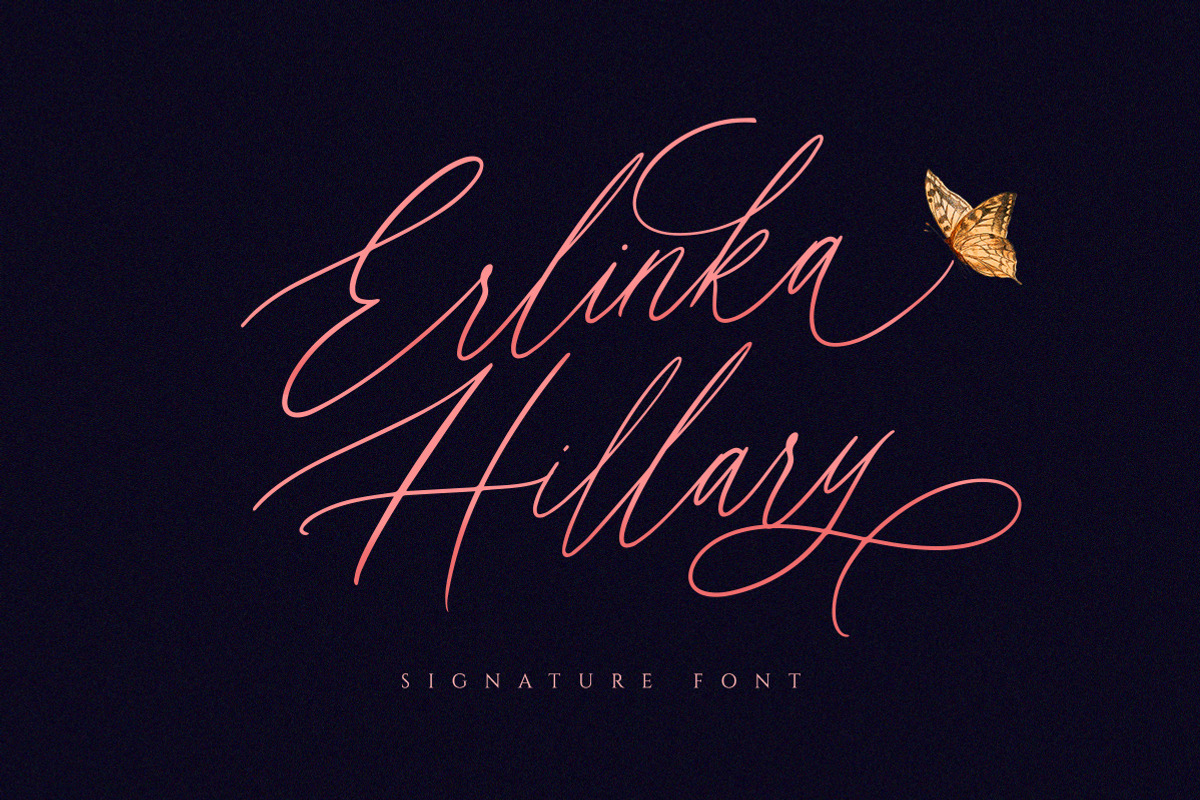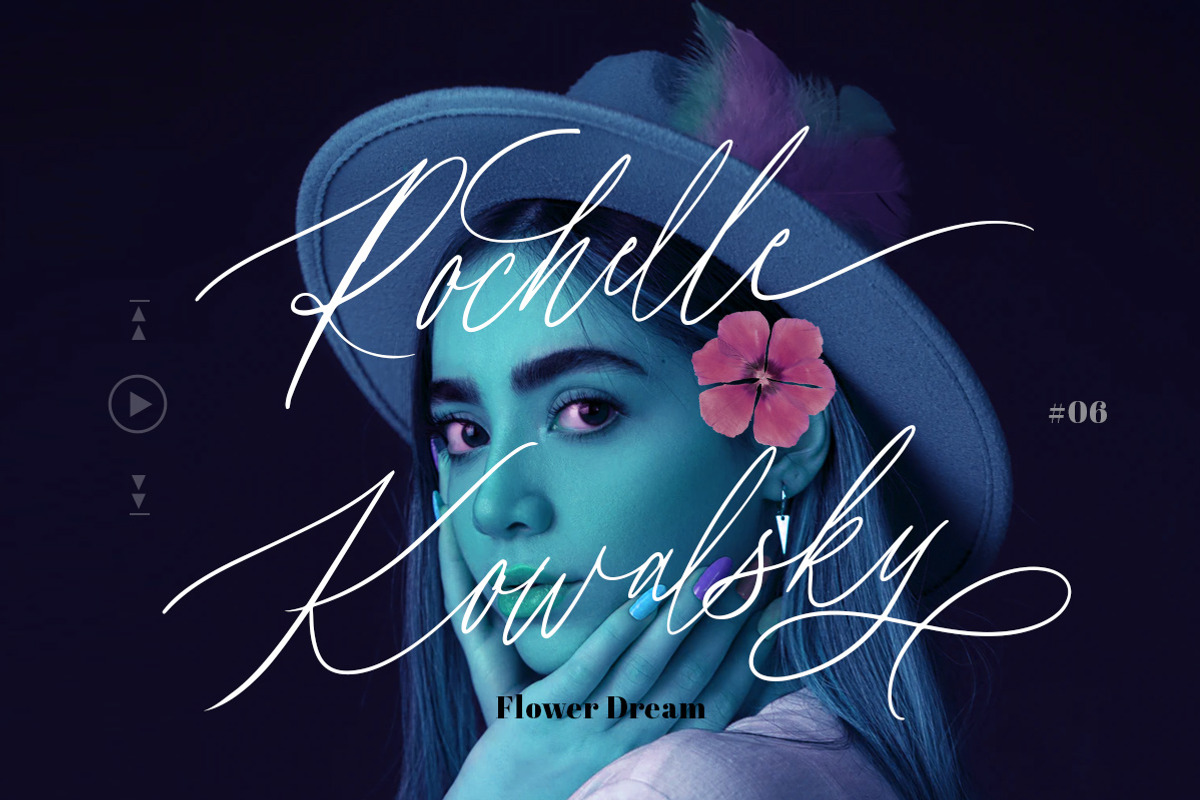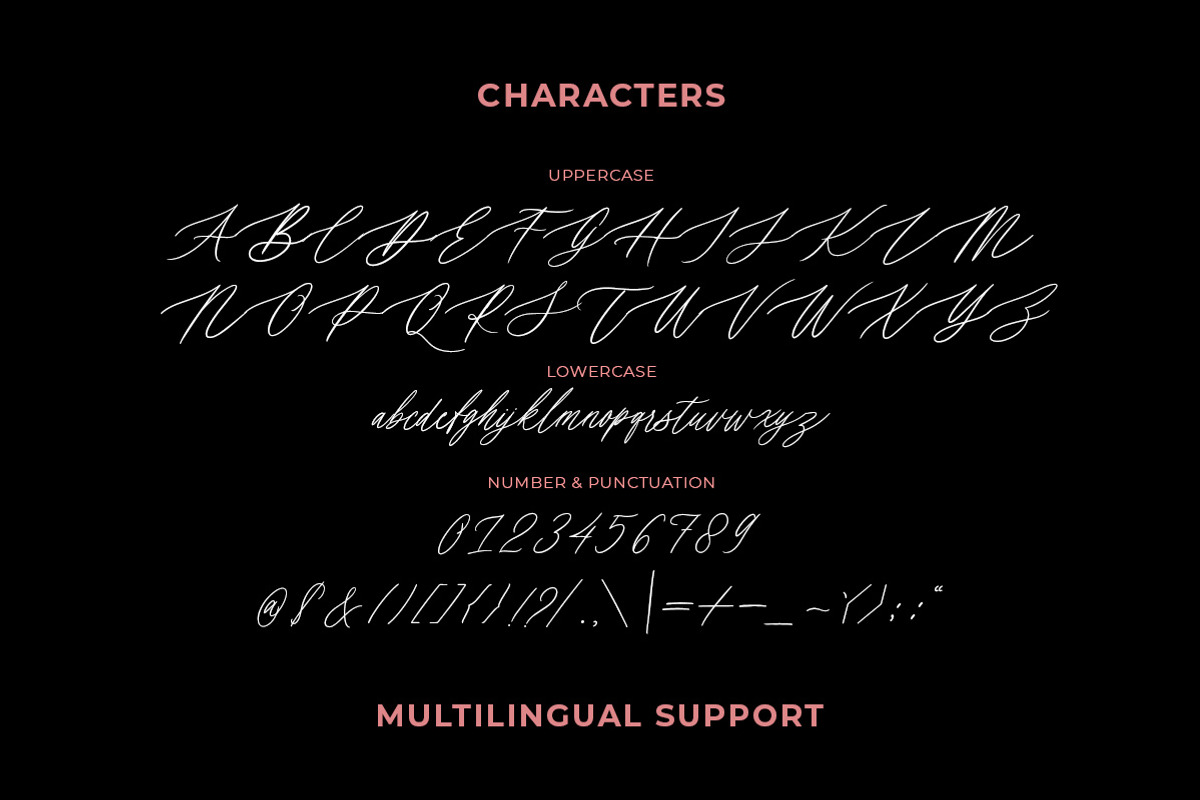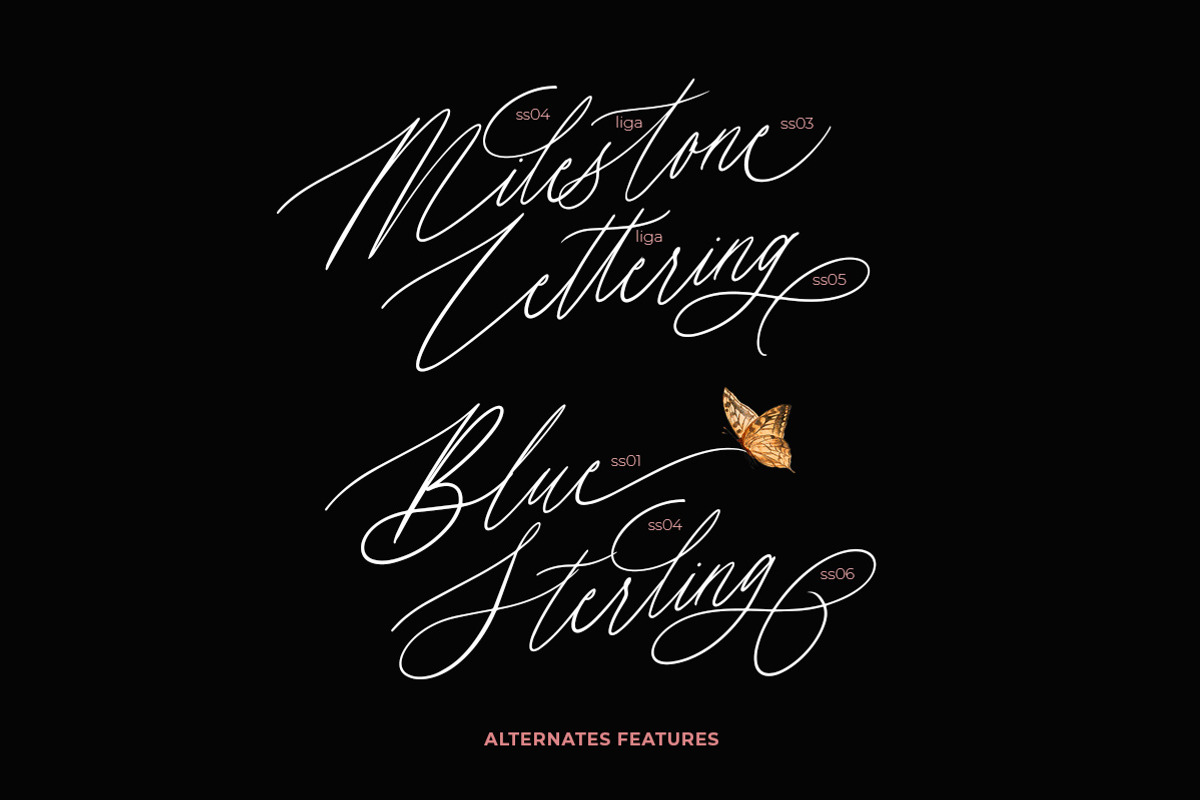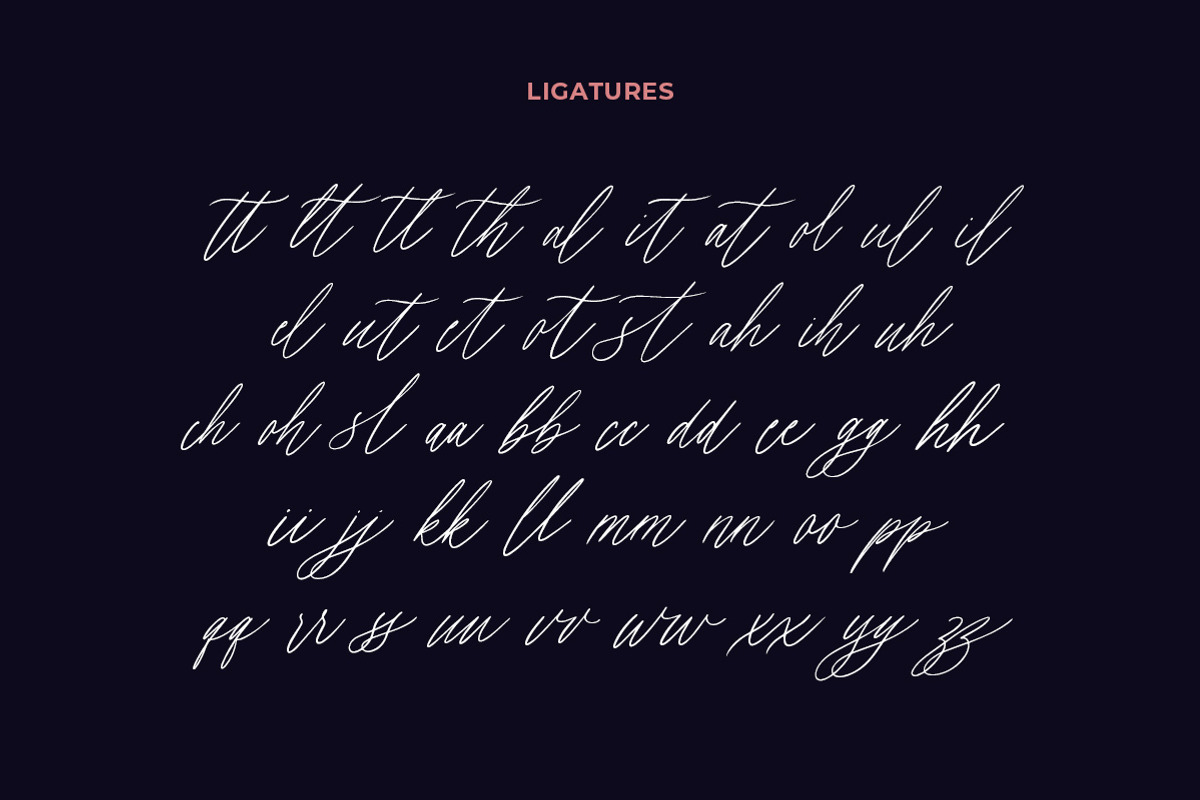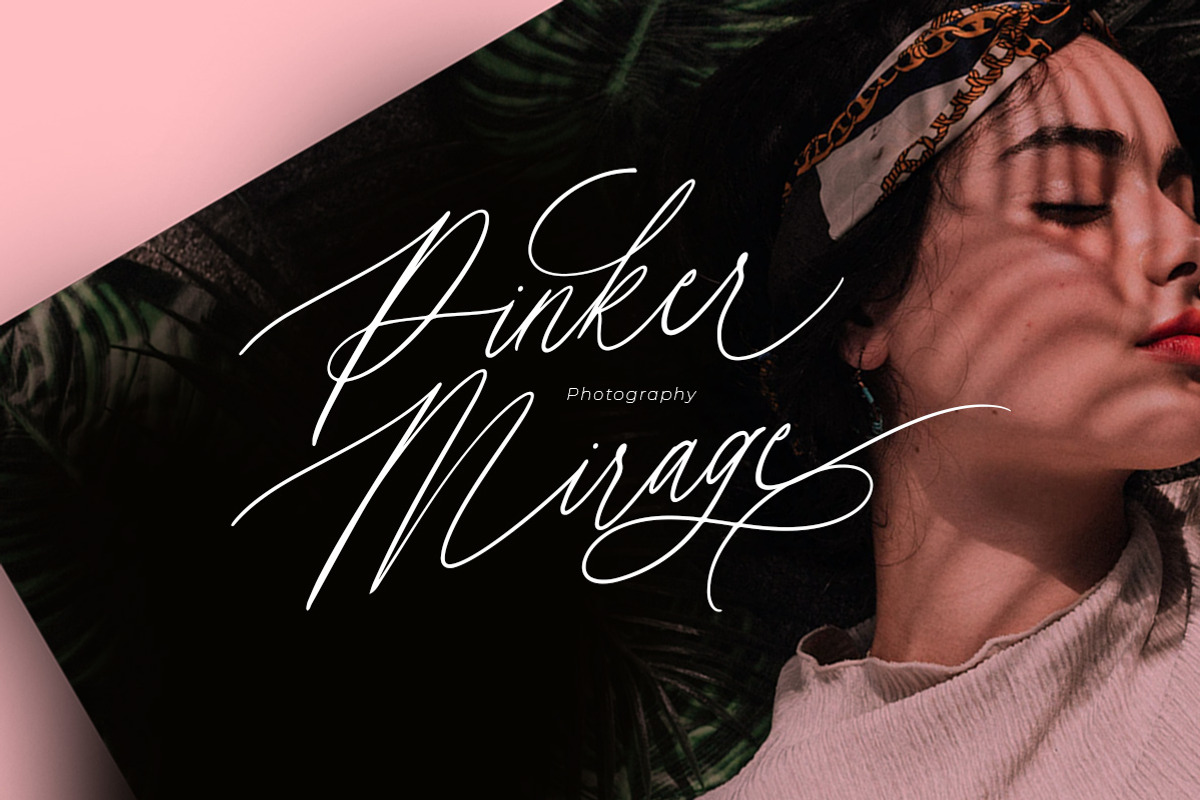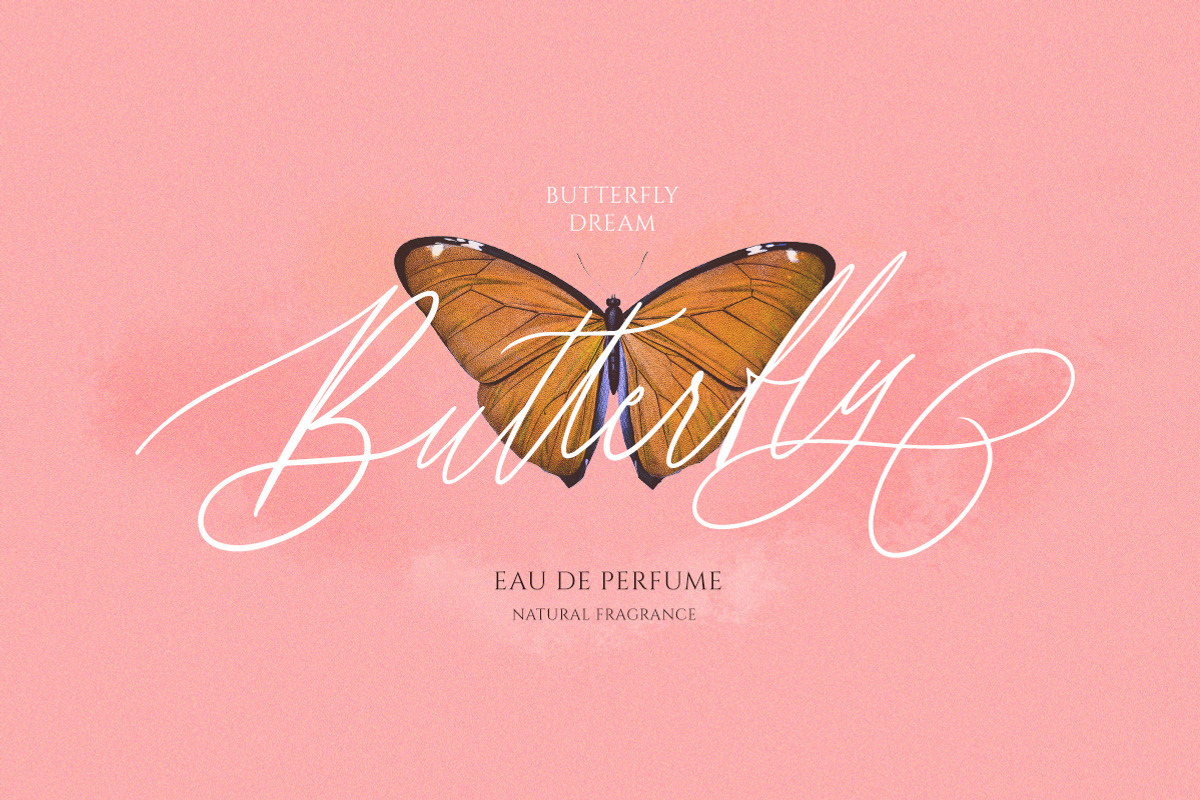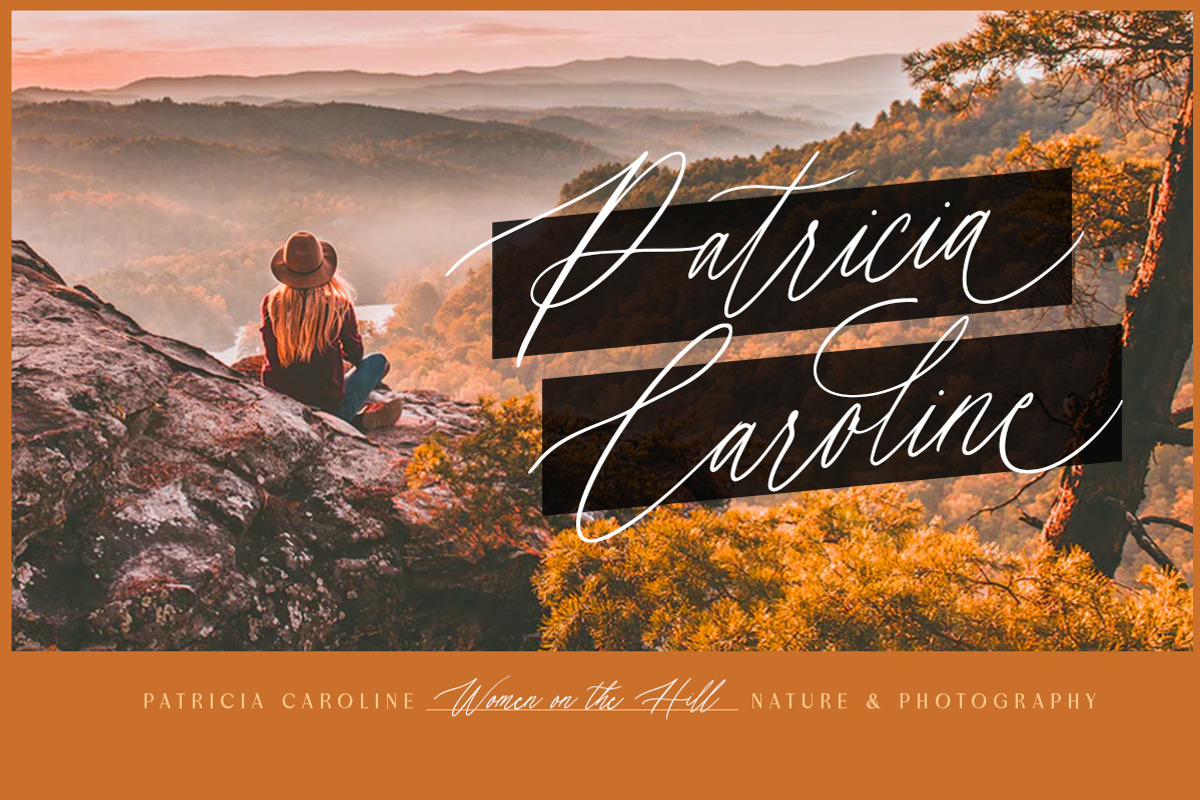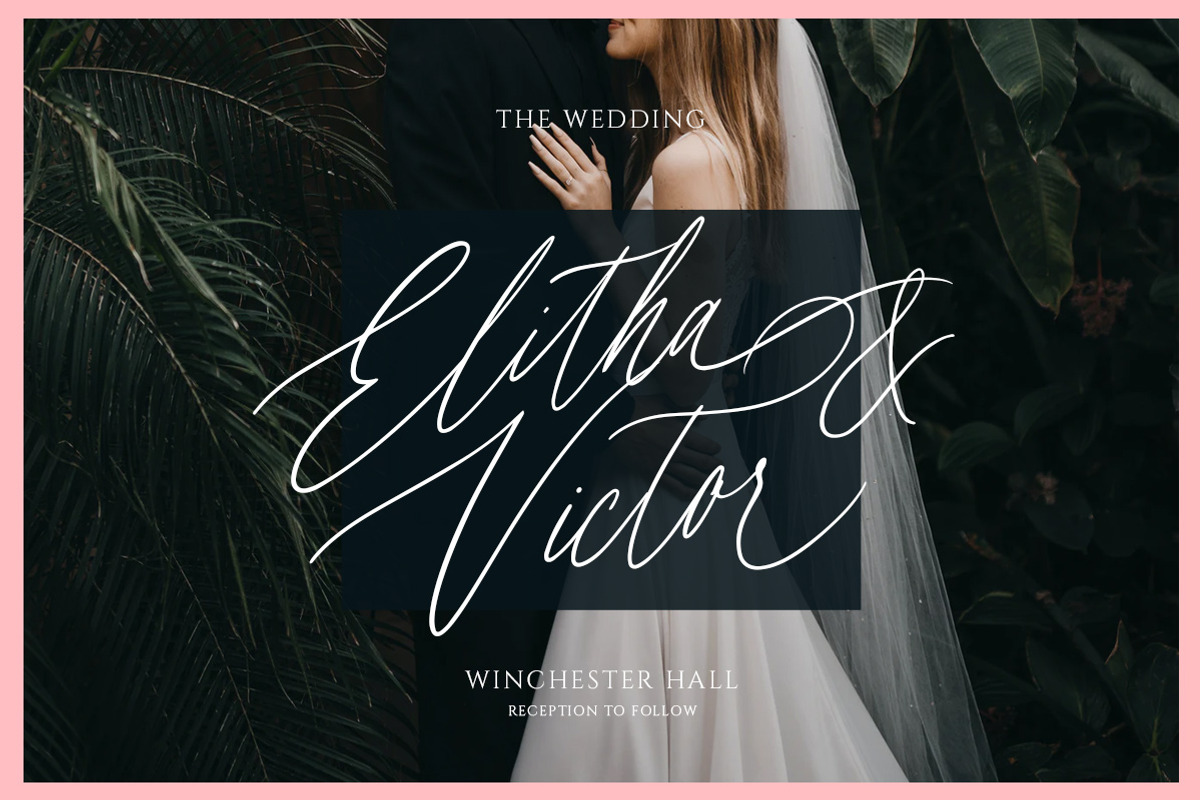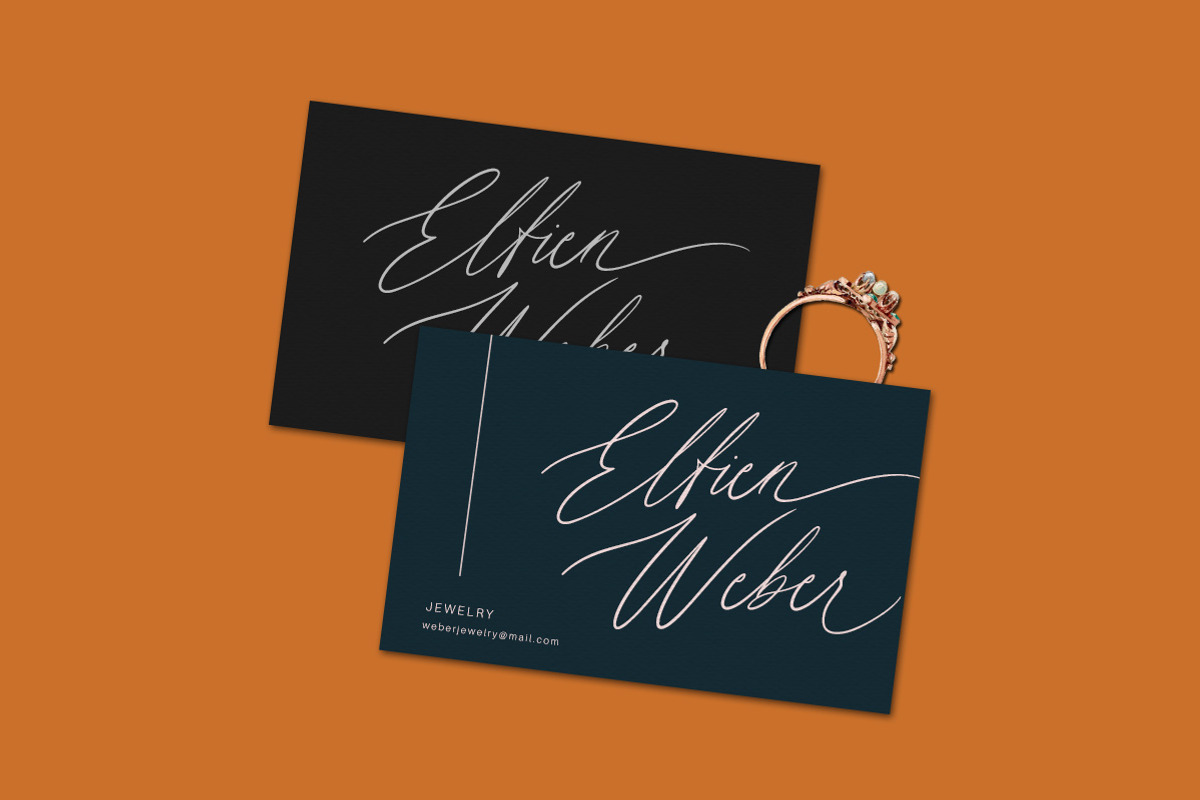
Erlinka Hillary - Signature Font
Erlinka Hillary is an script font based on authentic hand writing with natural signature style. This type of font perfectly made to be applied especially in logo, and the other various formal forms such as invitations, labels, logos, magazines, books, greeting / wedding cards, packaging, fashion, make up, stationery, novels, labels or any type of advertising purpose.
- alternates and ligatures
- swashes